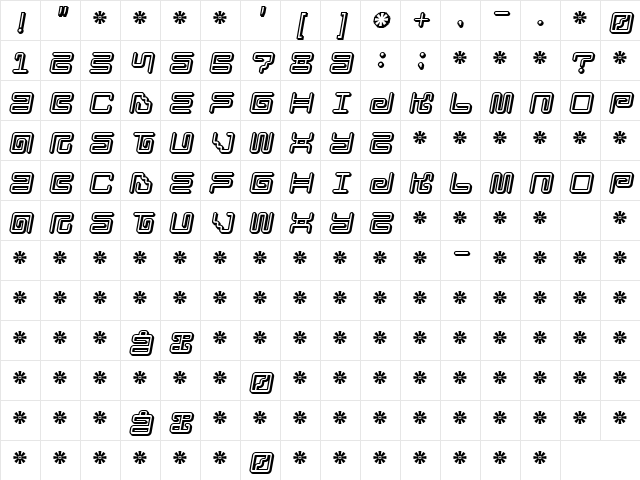
Iron Lounge Smart 2 Regular
Design Context for Iron Lounge Smart 2
Iron Lounge Smart 2 is a composed and adaptable typeface that performs quietly and consistently across a wide range of design contexts.